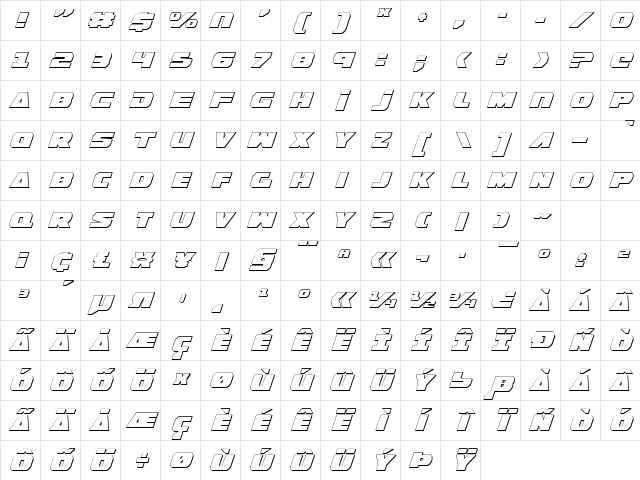
Complete Guardian Shadow Italic glyph index. Displaying only characters natively supported by Guardian Shadow Italic font.
Guardian Shadow is built around its visual character rather than neutral utility - its distinctive forms are designed to make an impression at display sizes. The slanted form adds forward momentum and visual energy.
Font Pairing: Pair with a clean neutral sans-serif for body copy to let Guardian Shadow's character lead without overwhelming the composition.
Pro Tip: Use Guardian Shadow exclusively at display sizes - it was designed to be seen, not read at length. Let a neutral companion handle body copy.